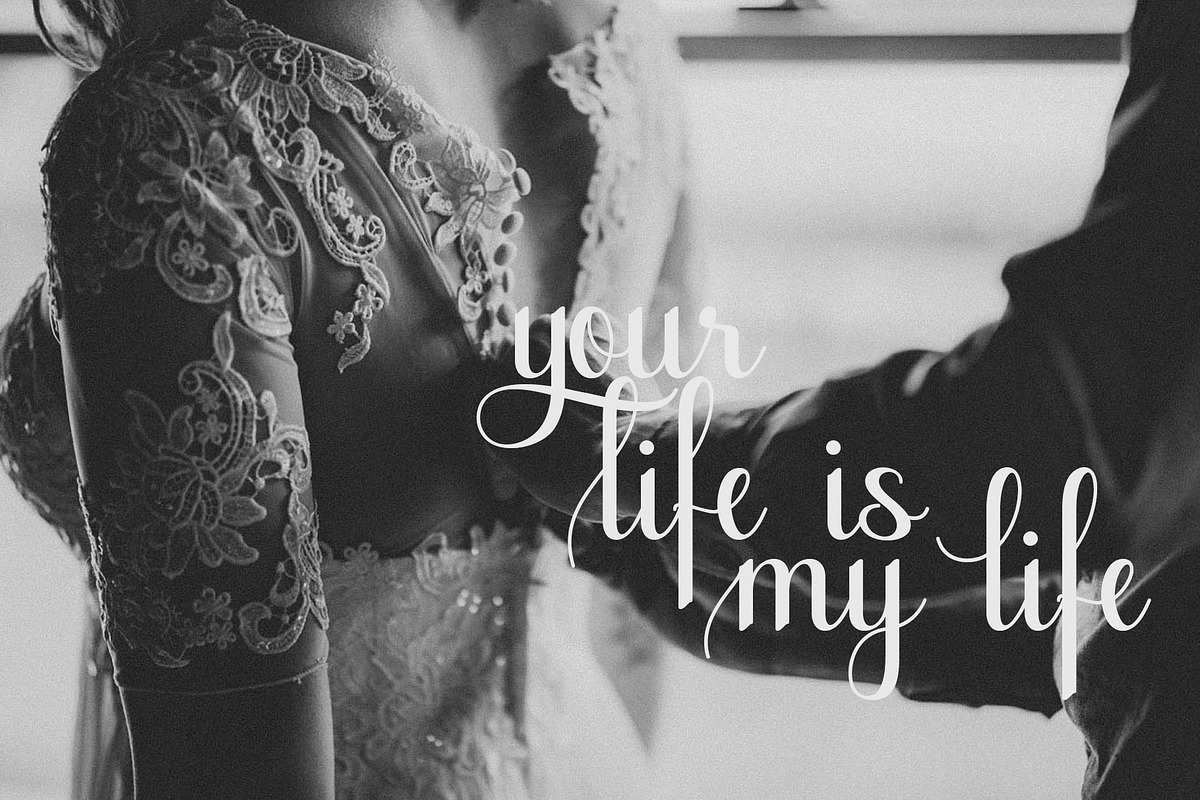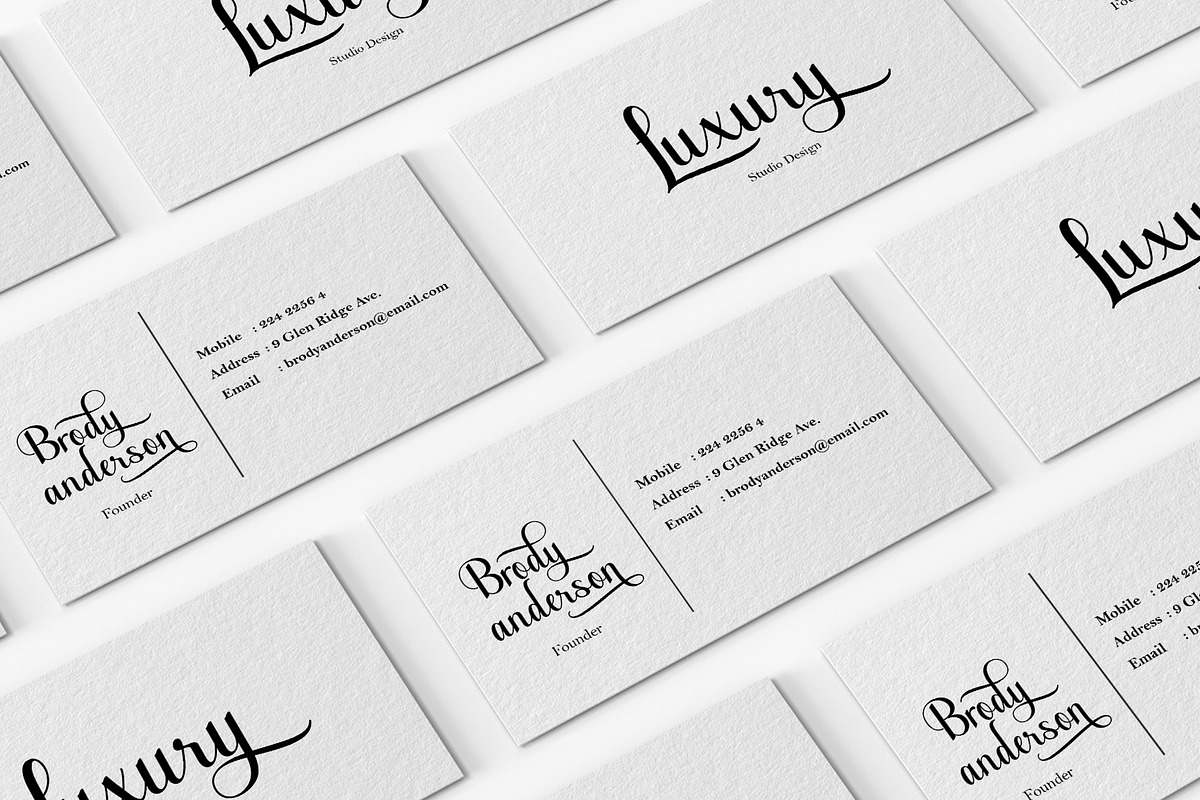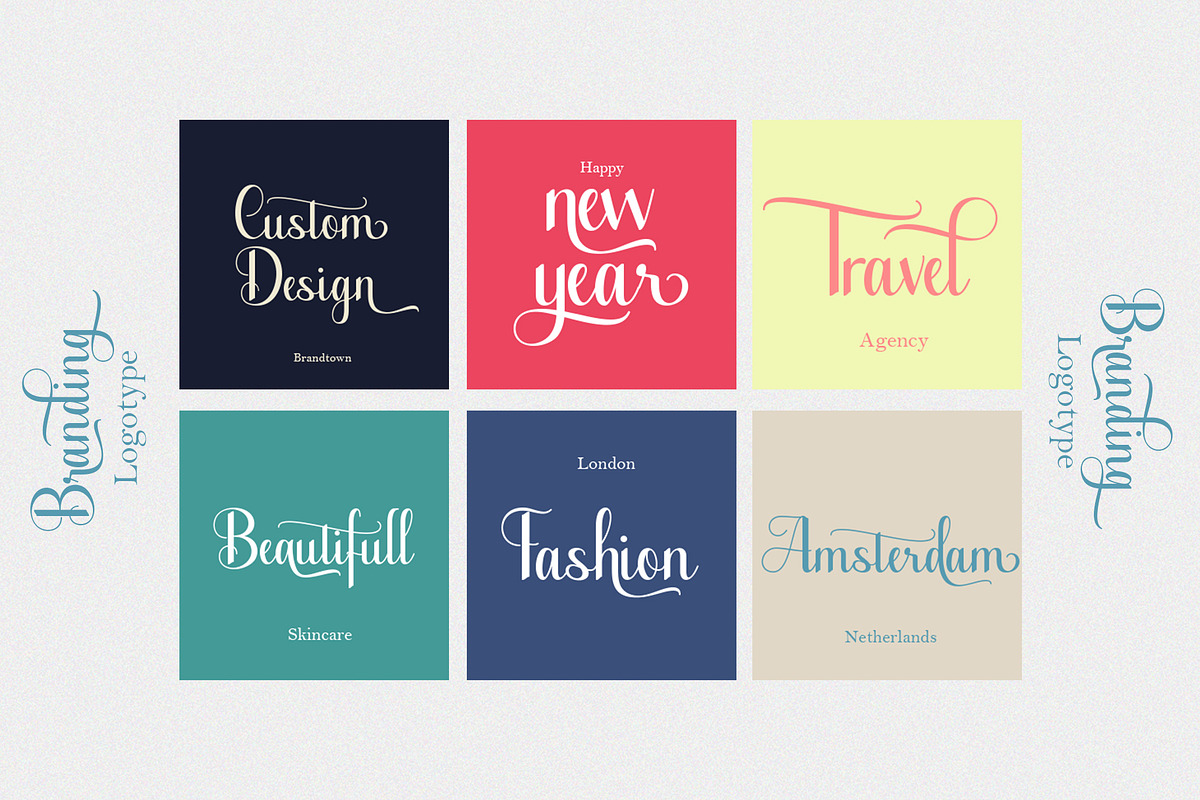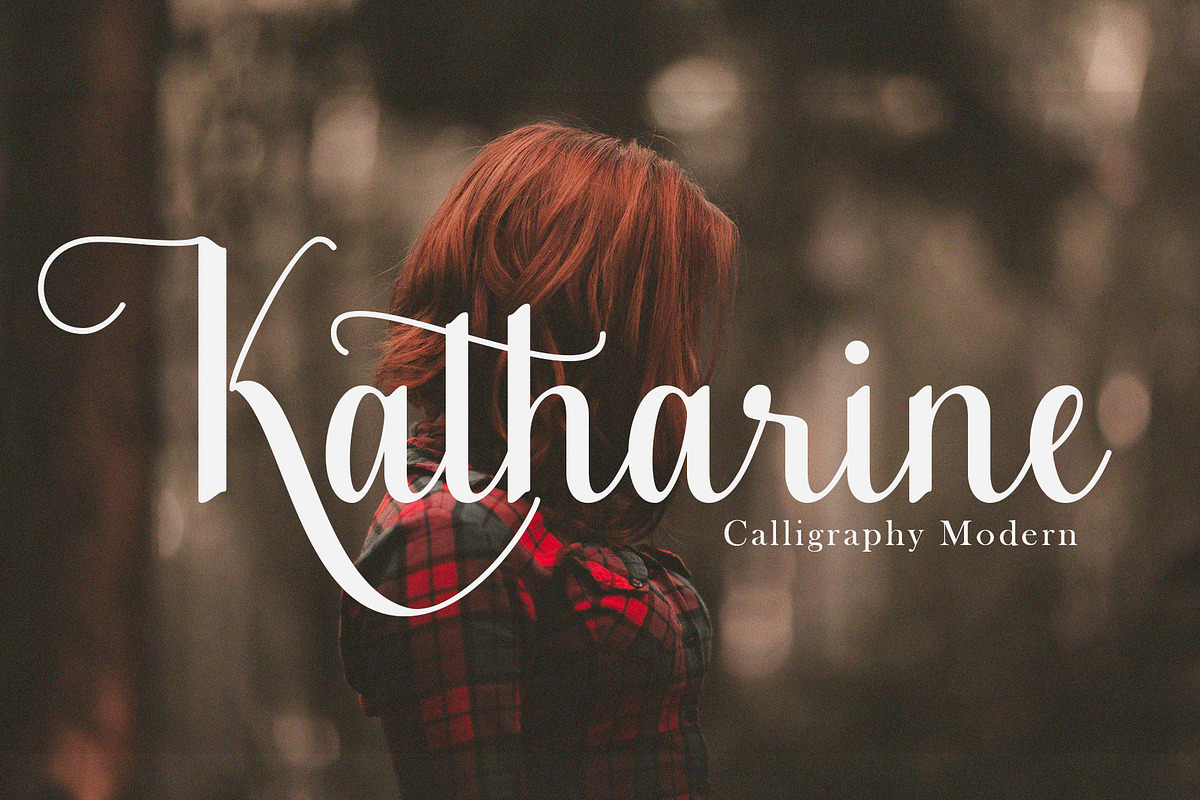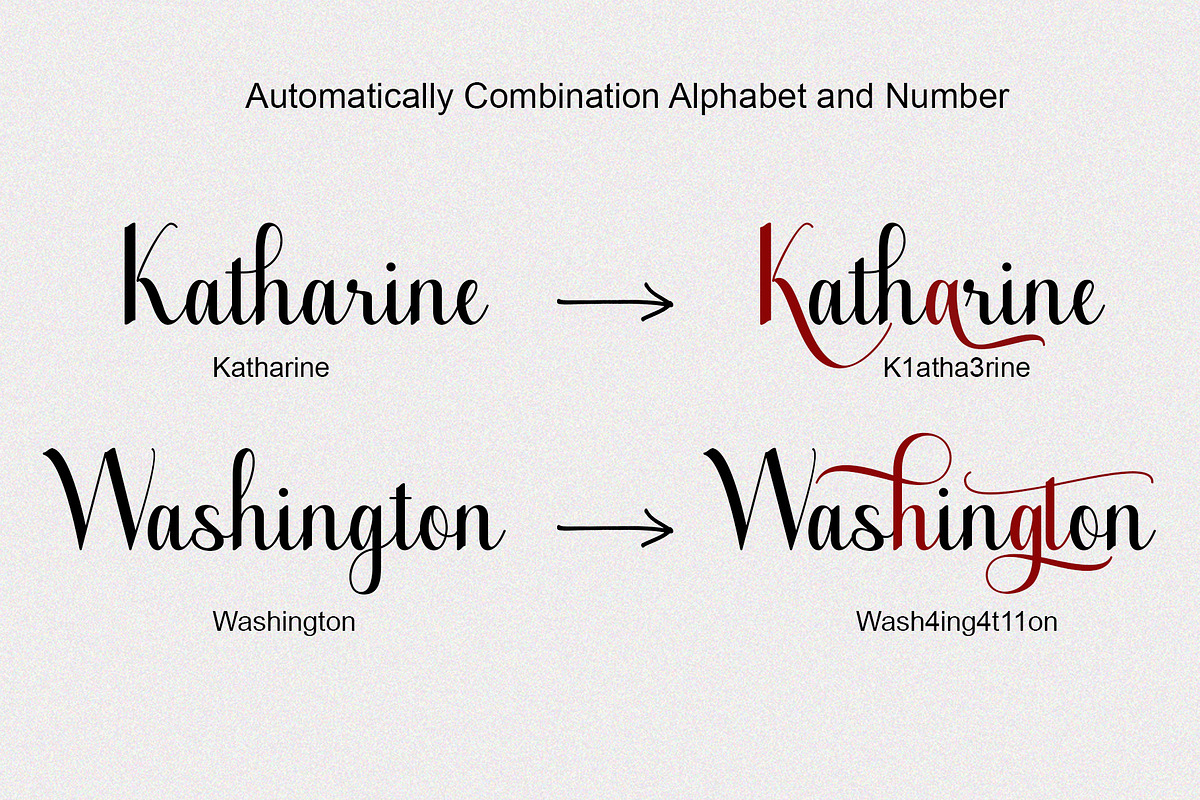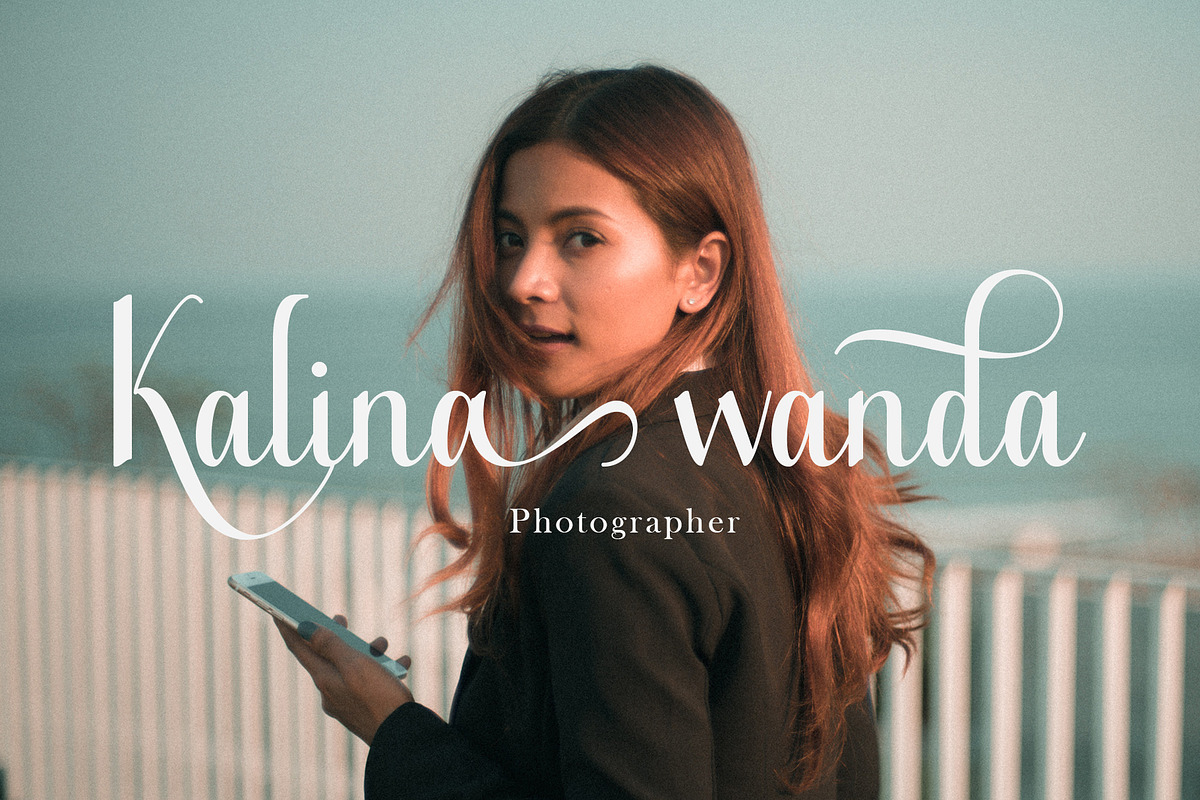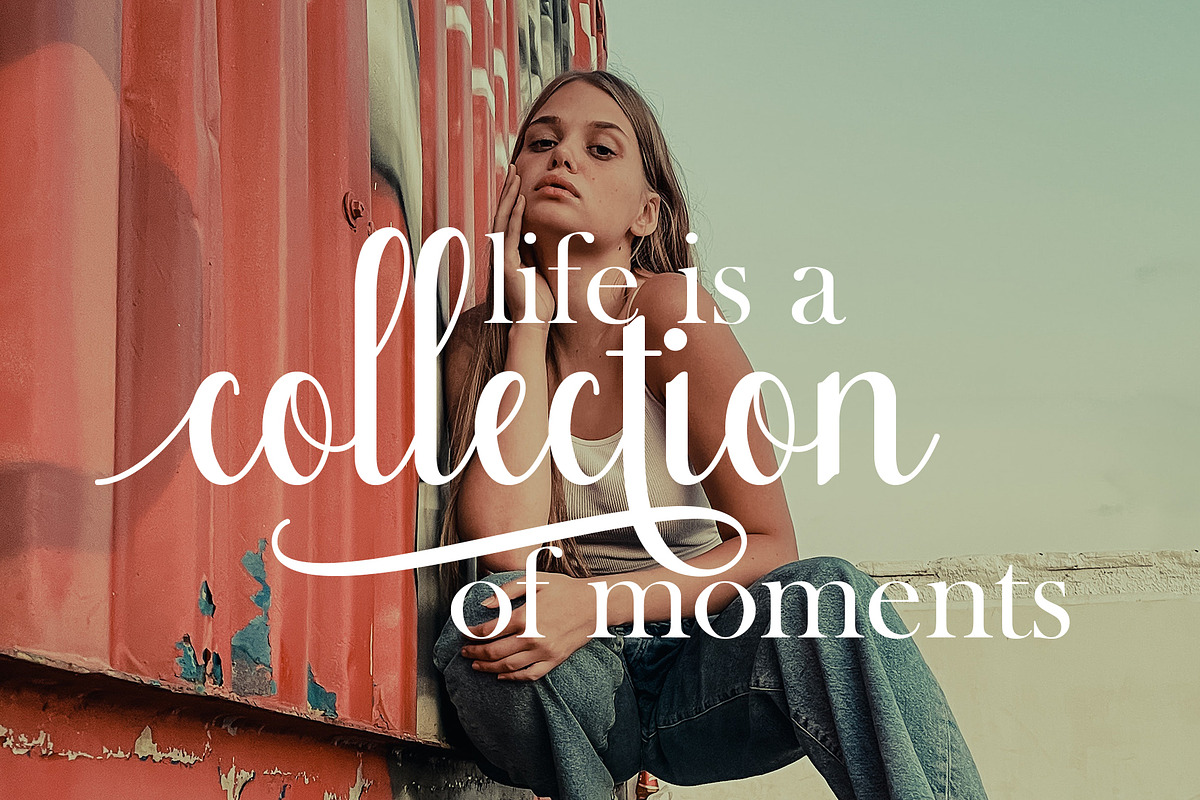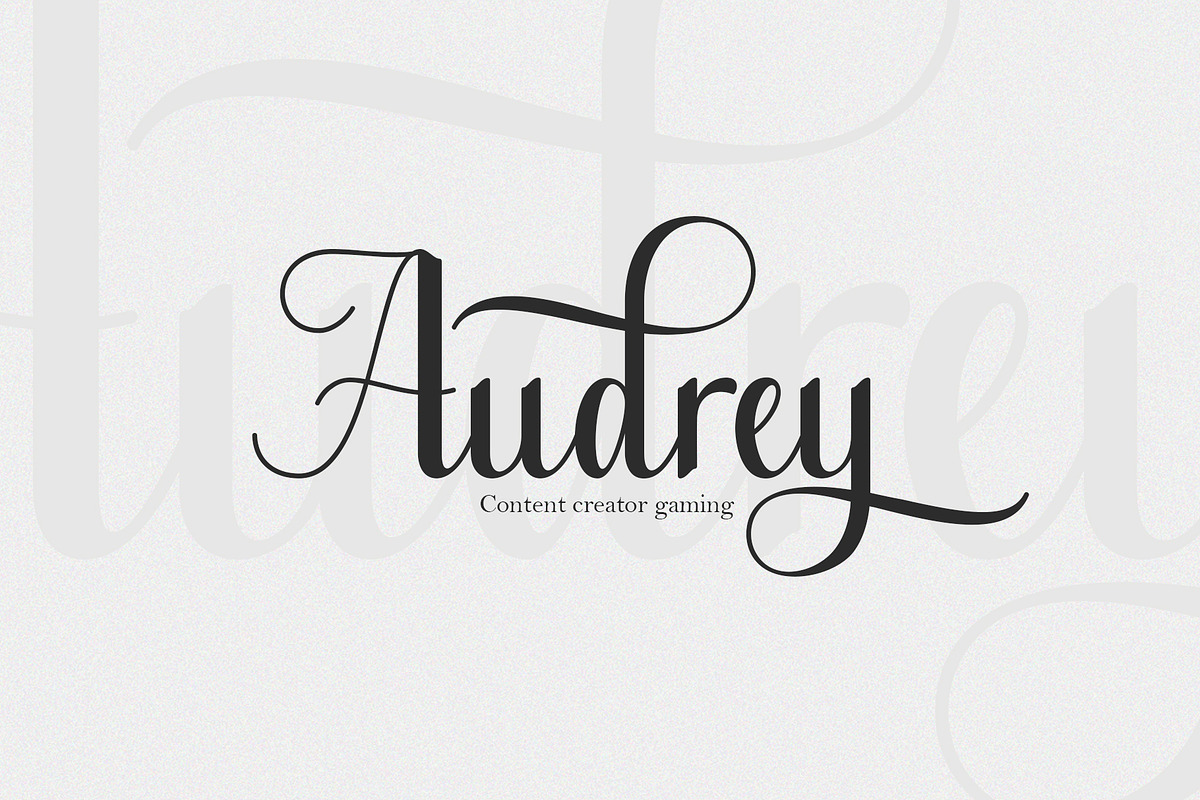
Katharine Calligraphy Modern
Katharine is a fresh new font, Made in Upright style, Katharine Has 417 glyphs with lots of swash options. This Katharine font is very easy for you to work with, because it has automatic alphabet and number combinations to change the swash inside the letters.
This font is suitable for:
- Branding
- Logotype
- Poster
- Social Media and others.